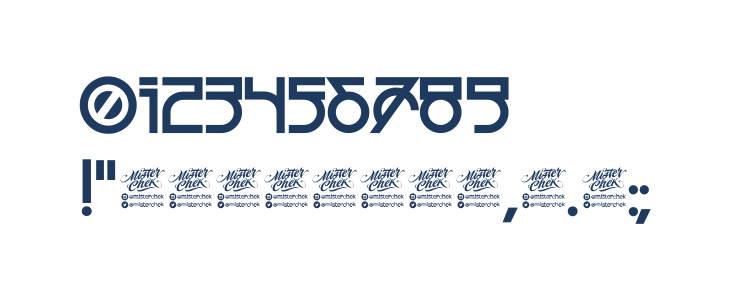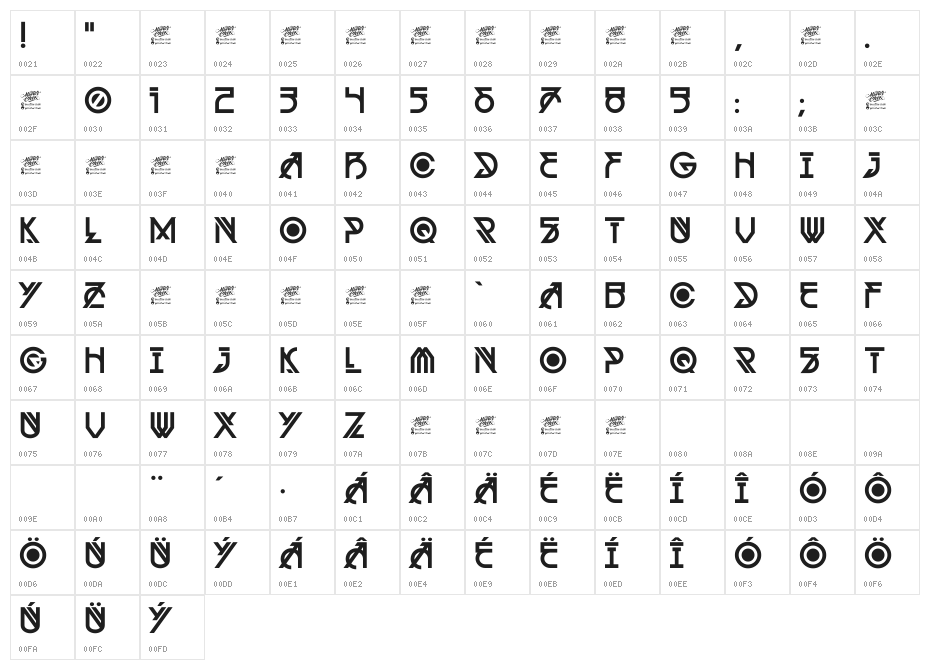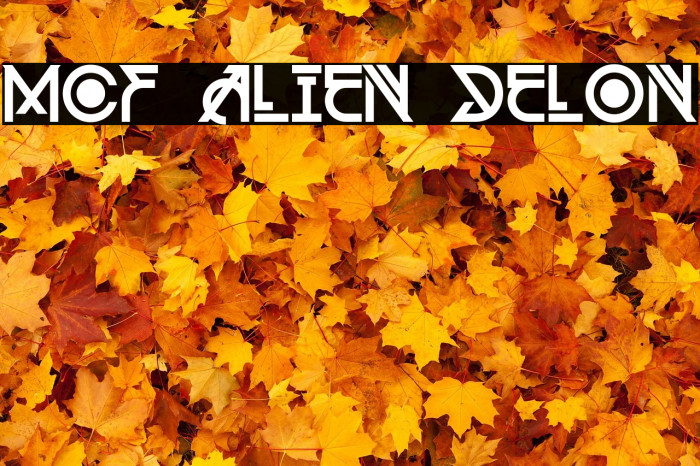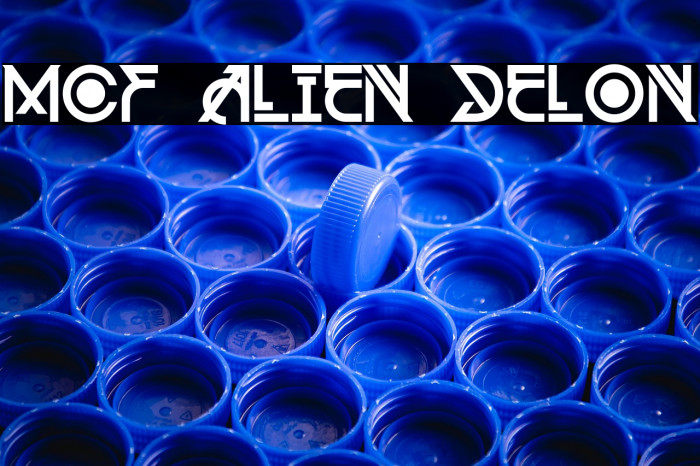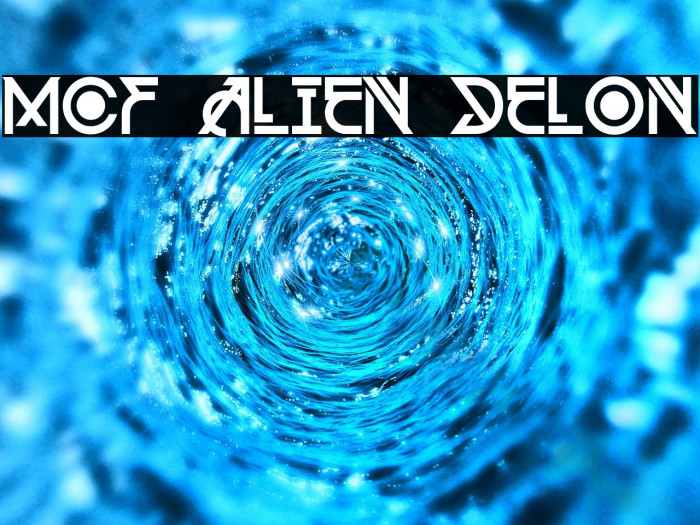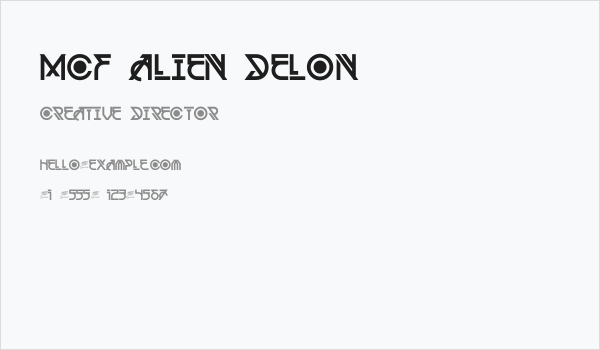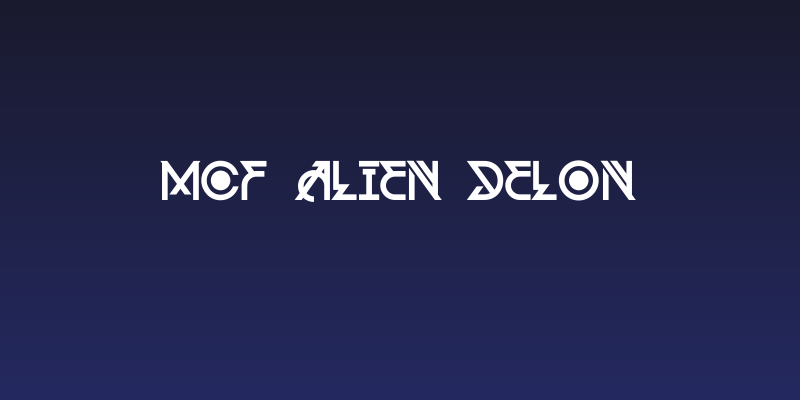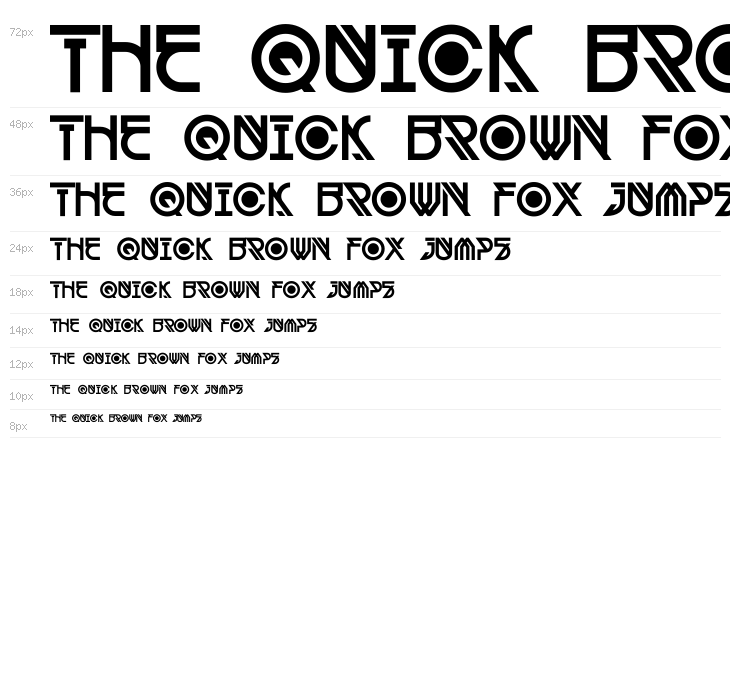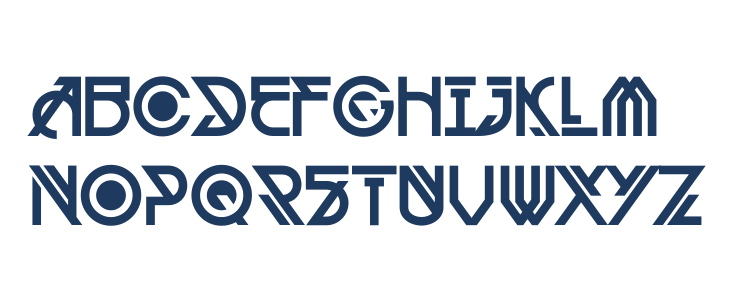
MCF Alien Delon Font
MCF Alien Delon Description
This font features a futuristic and geometric design, characterized by sharp angles and bold lines. The uppercase and lowercase letters share a consistent style, with unique cutouts and angular shapes that give a sense of movement and modernity. The numerals and special characters maintain this aesthetic, ensuring a cohesive look across all glyphs. The font's distinct appearance makes it ideal for projects that require a bold and unconventional style.